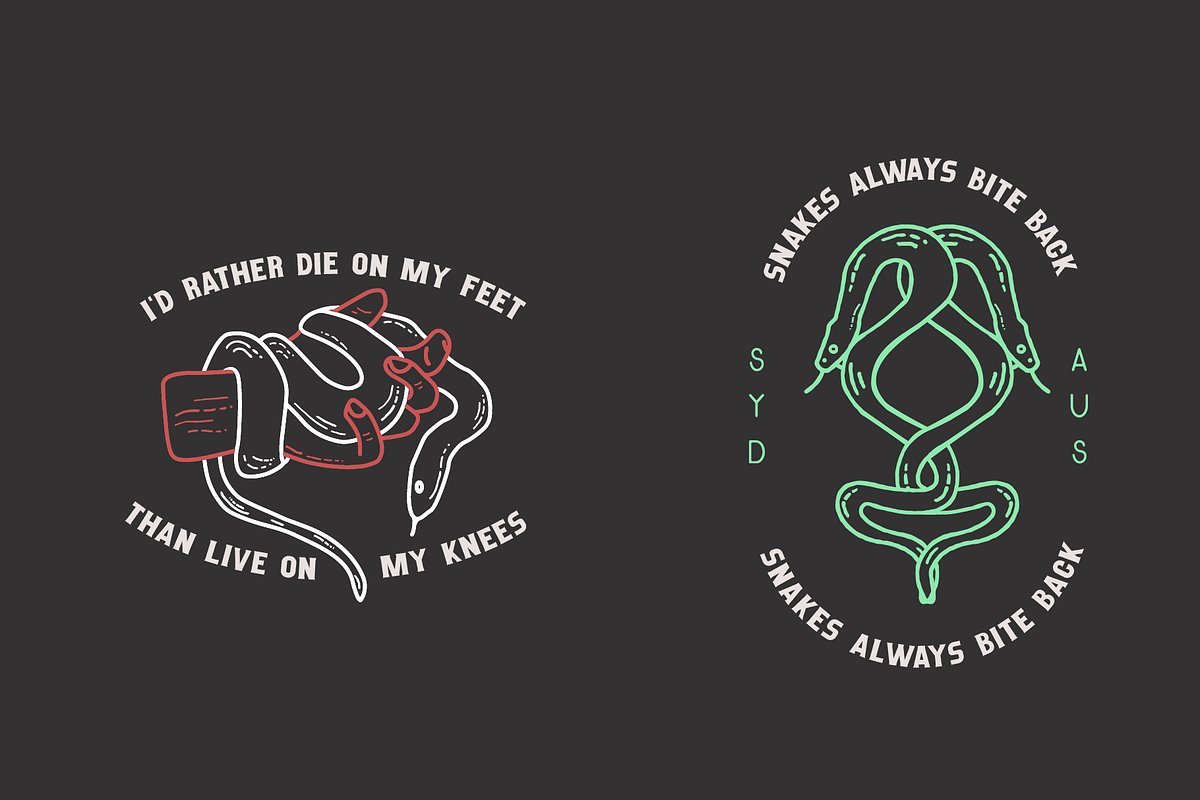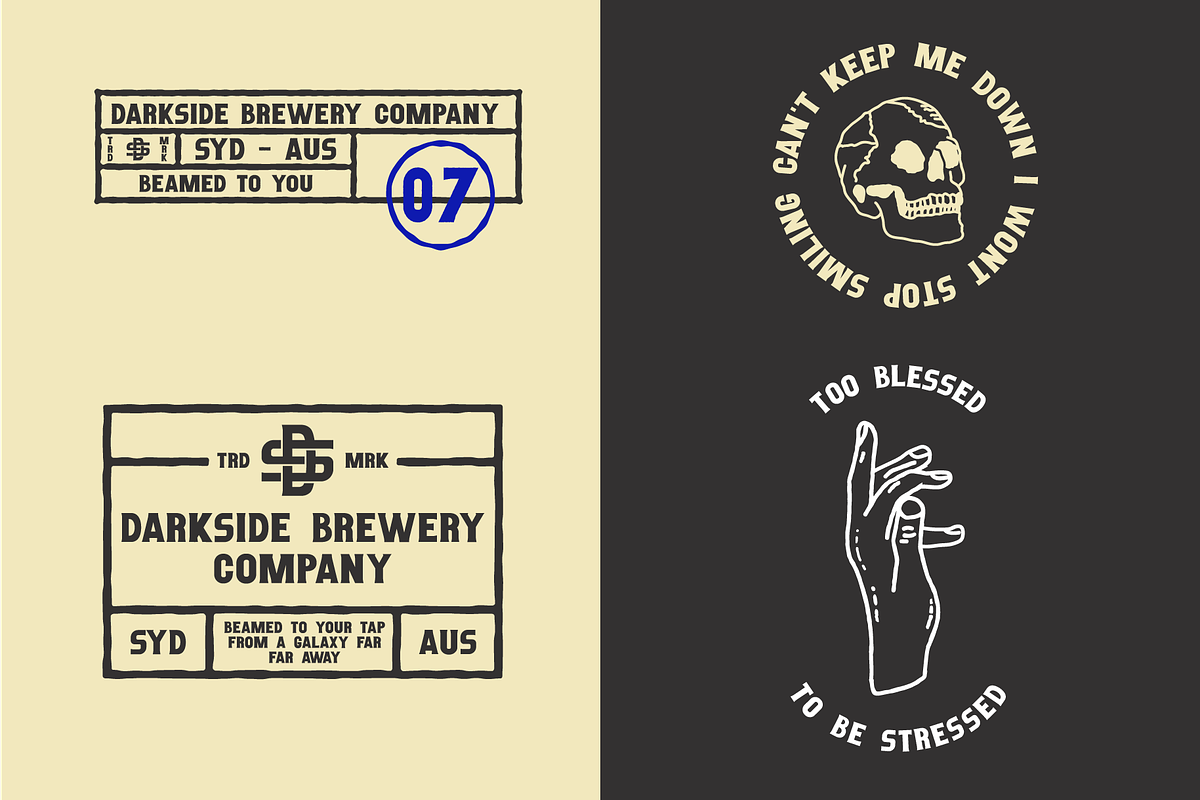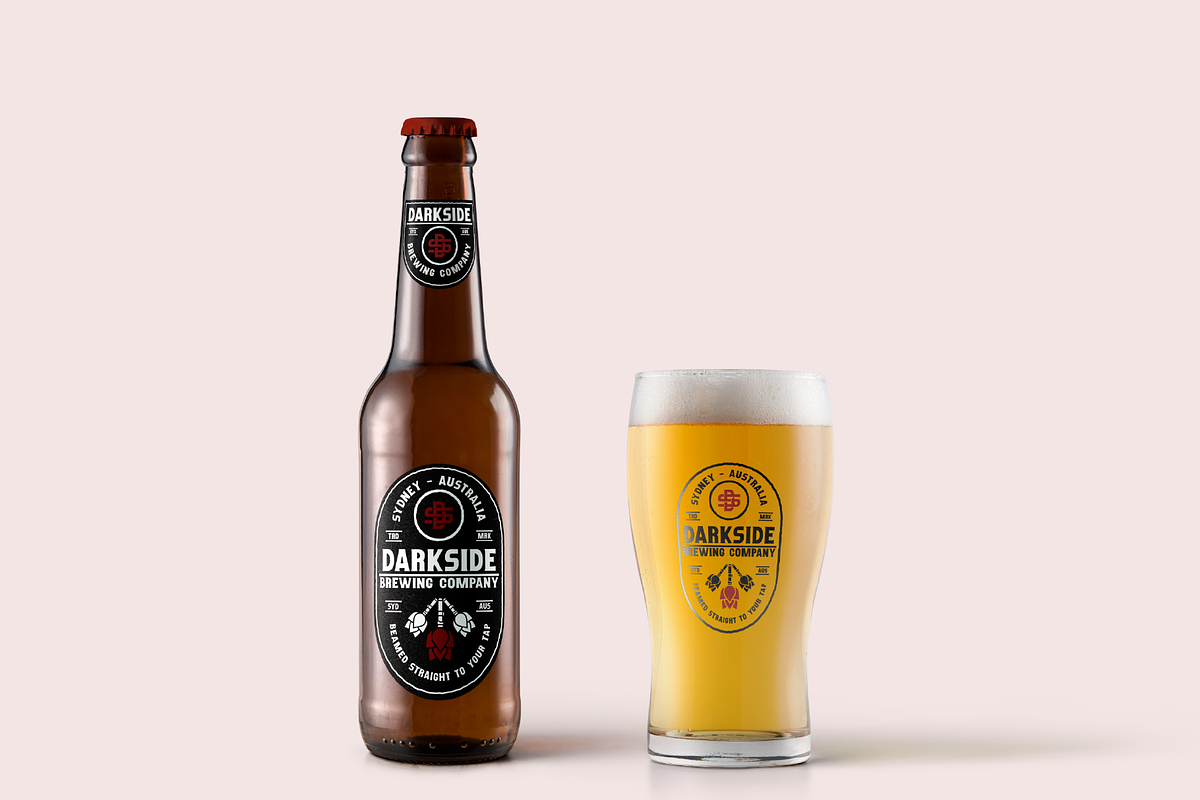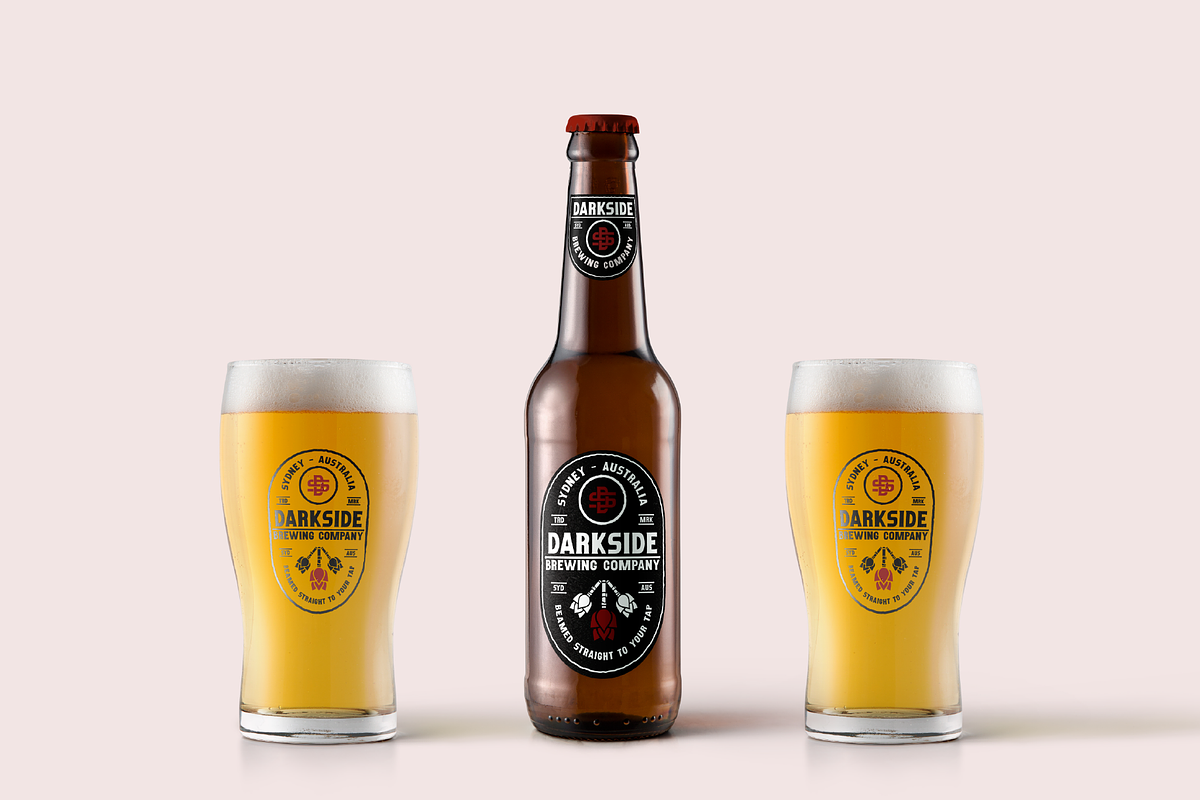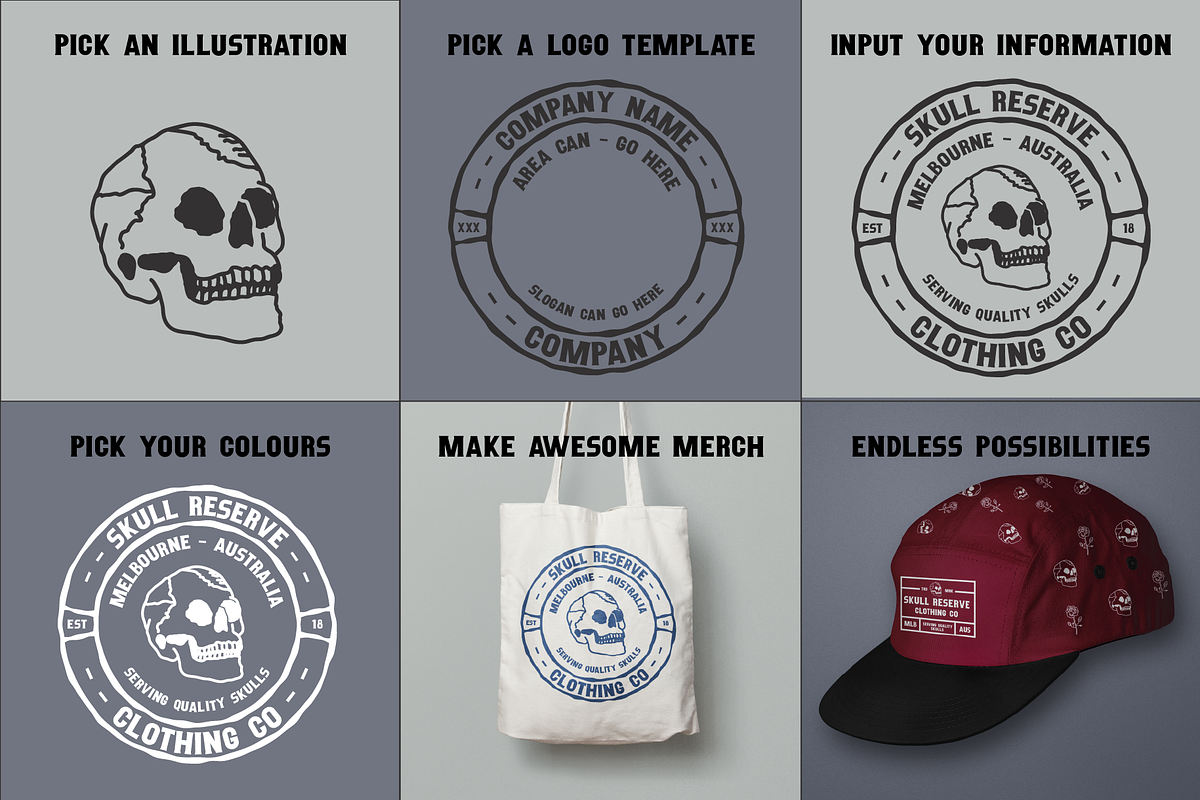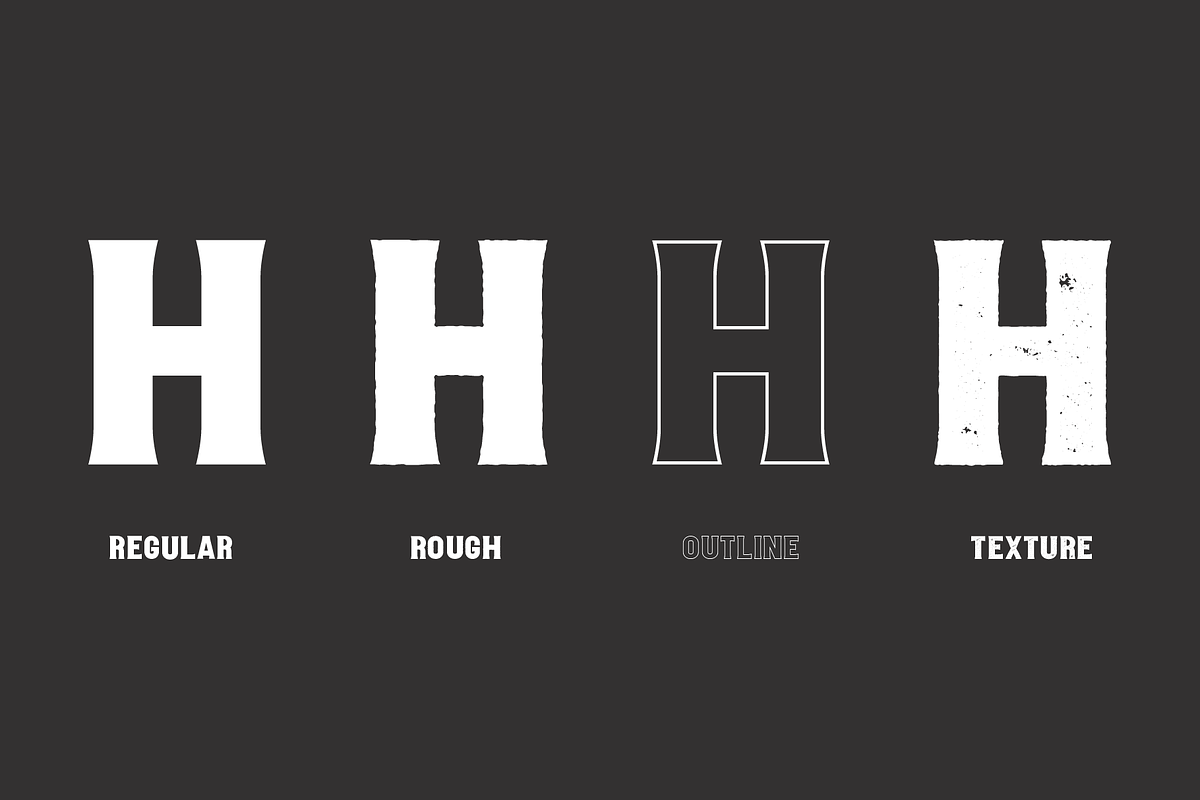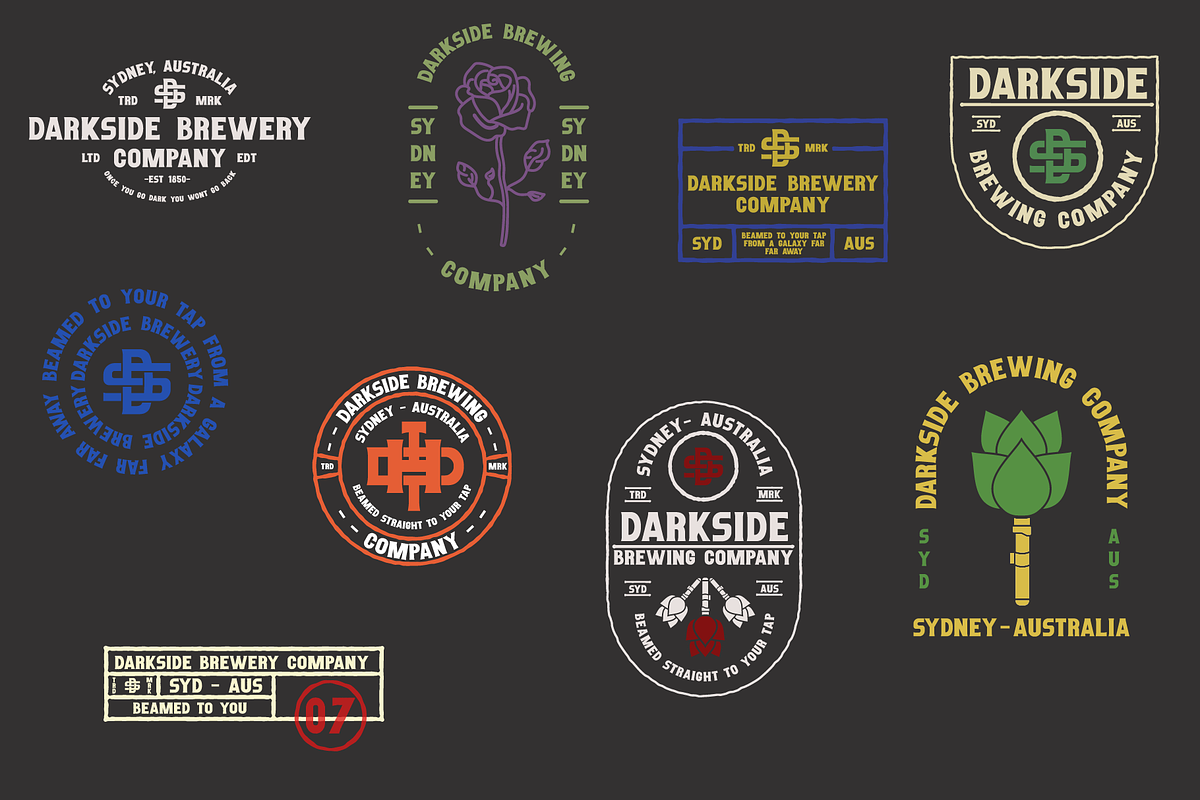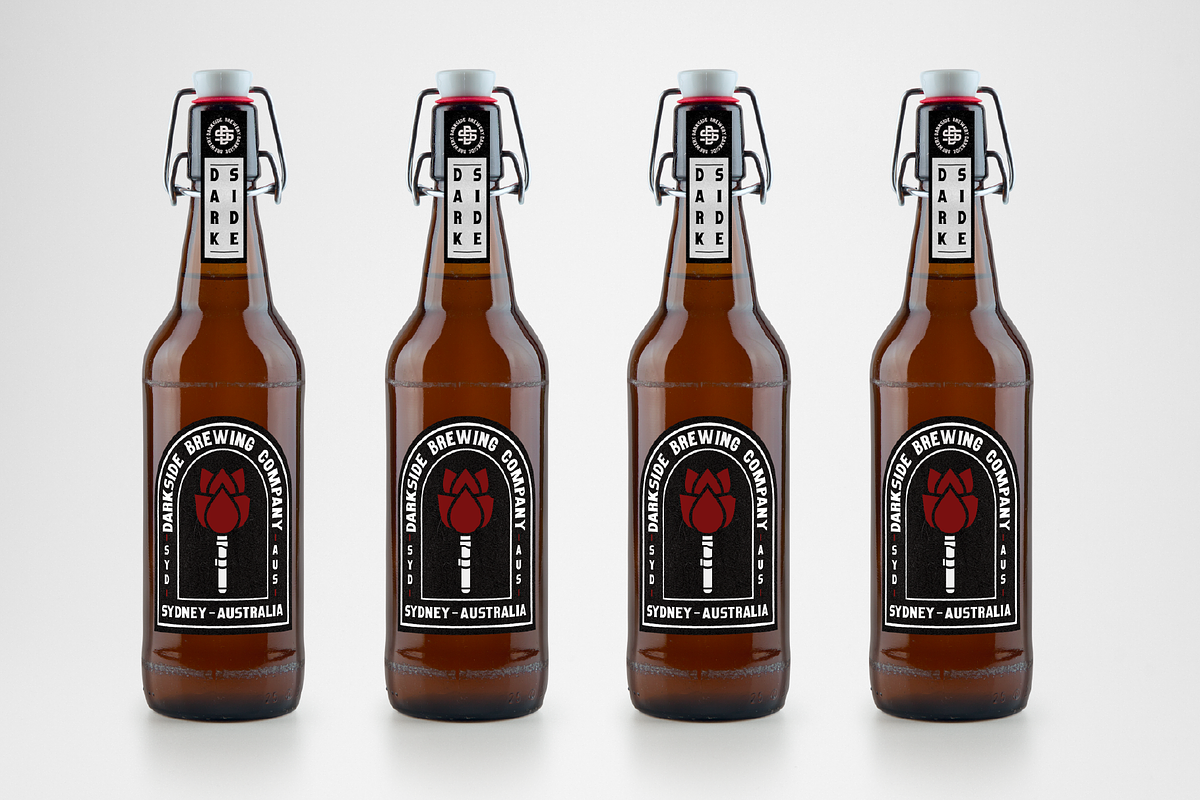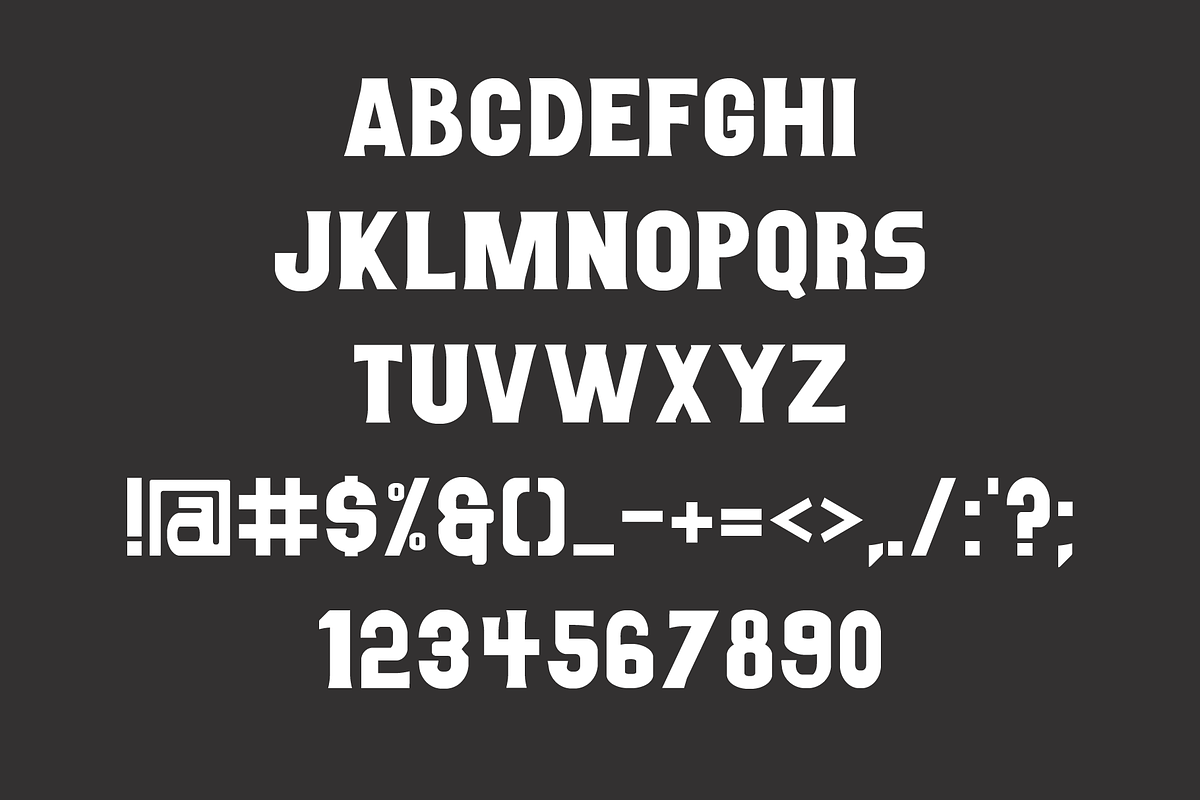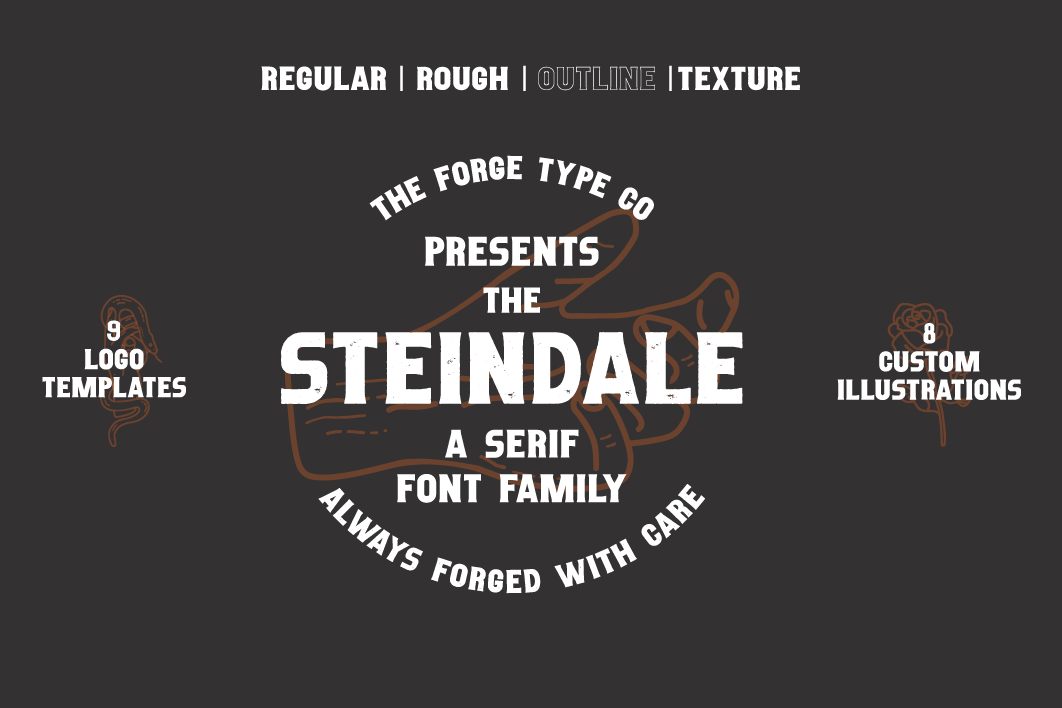
Steindale - Vintage Serif Font
Vintage-Style branding made easy!
Have you ever dreamt of capturing the perfect vintage style for a design, but struggled to find the right products to make it feel authentic? This package is for you! Featuring our new font ‘Steindale’ plus BONUS easy to edit logo templates and custom illustrations.
With a vintage brewery style, inspired by traditional alcohol packaging with a touch of ‘Old School Cool’, Steindale is the perfect choice for your vintage-inspired designs and branding! Hardy and rugged with a subtle serif, Steindale is versatile and easy to use for any design. This package also includes bonus illustrations and logo templates, which can be easily paired and re-arranged for all your branding, merchandise and logo designs.